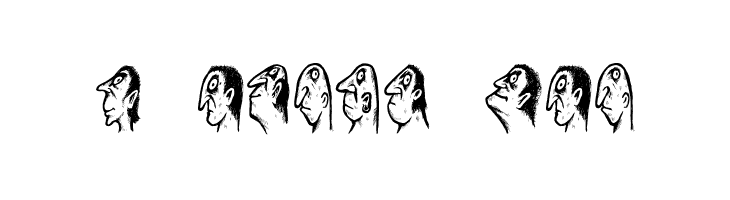
A bold, modern font with vintage elements, perfect for impactful designs.
A playful, handwritten font with tall, narrow letters and a casual style.
A sleek, modern italic font with compact, rounded characters and medium contrast.
A bold, brushstroke-style font with a dynamic, textured appearance.
A bold, 3D decorative font with sharp serifs and high contrast.
A sophisticated serif font with elegant, elongated strokes and a slightly condensed appearance.
Whimsical pictorial font with silhouette illustrations for each character.
设计师偏爱 Zkratchy Regular, ACROSS THE NIGHT, FlyknitLife, PsychoPaths and Planet N Compact Italic,因为其造型干净、适用范围广—— 从品牌识别到落地页、海报都能胜任。